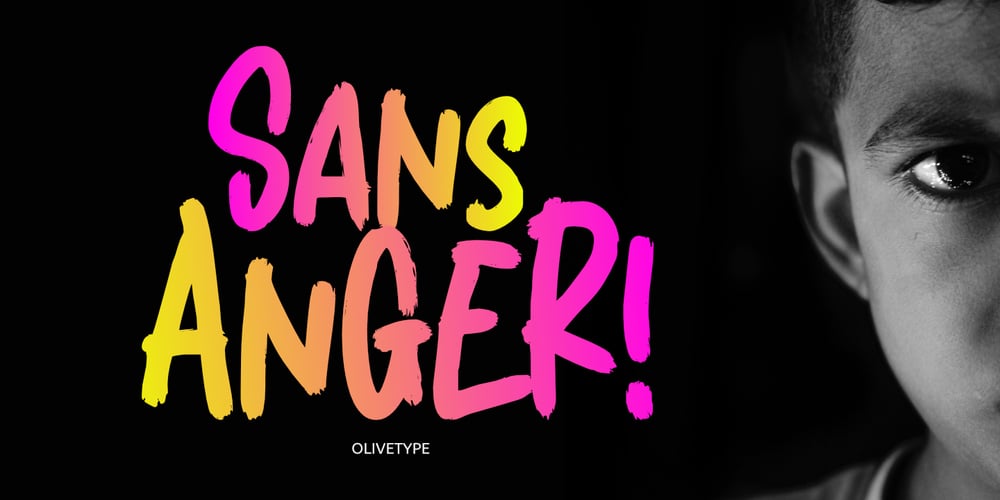
Sans Anger
Sans Anger font
Sans Anger Font Family was designed by Nurul Hidayani and published by Olivetype. Sans Anger contains 1 styles and family package options. Sans Anger is a stunning and authentic brush font with a natural feel. Get inspired by its whimsical style and turn any design project into a true stand-out.So what’s included: Sans Anger (OTF, TTF, and WOFF) Basic Latin A-Z, a-z, numbers, symbols, and punctuations Sans Anger is supporting Multi Languages: from Afrikaans Albanian Catalan Danish to Dutch English Spanish Swedish Zulu. Accented Characters : ÀÁÂÃÄÅÆÇÈÉÊËÌÍÎÏÑÒÓÔÕÖØŒŠÙÚÛÜŸÝŽàáâãäåæçèéêëìíîïñòóôõöøœšùúûüýÿžß Thank you